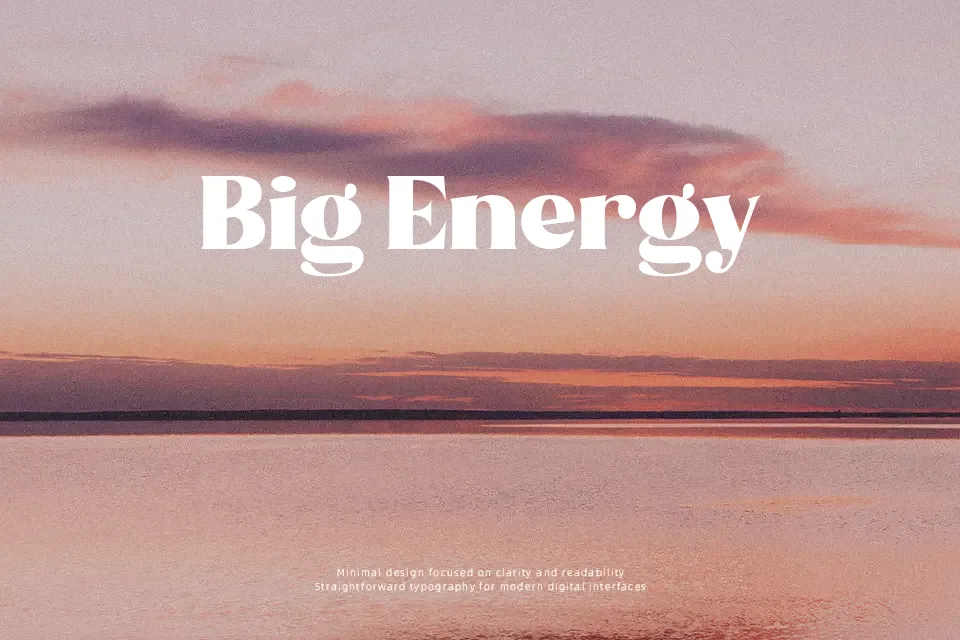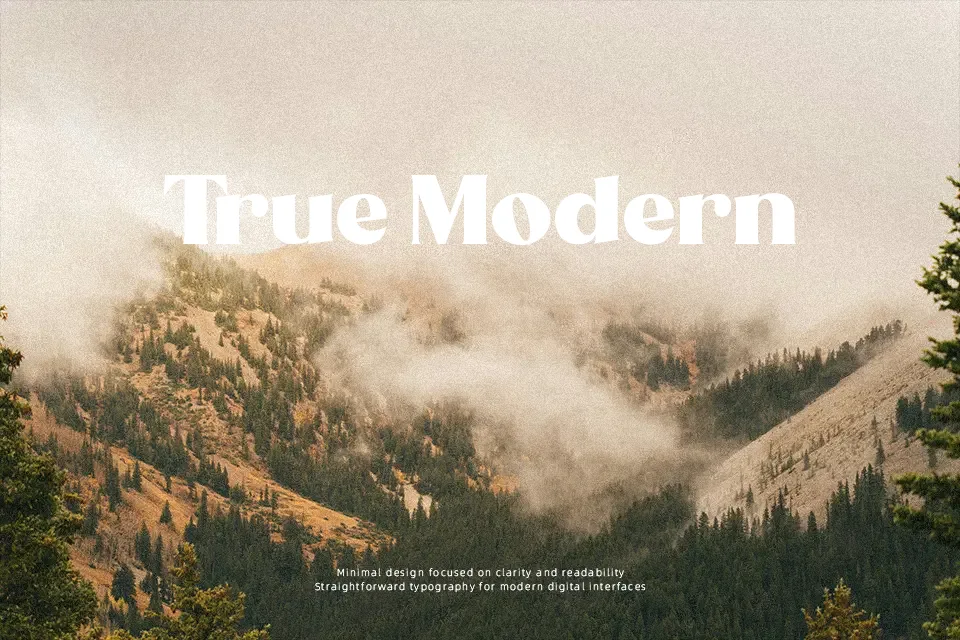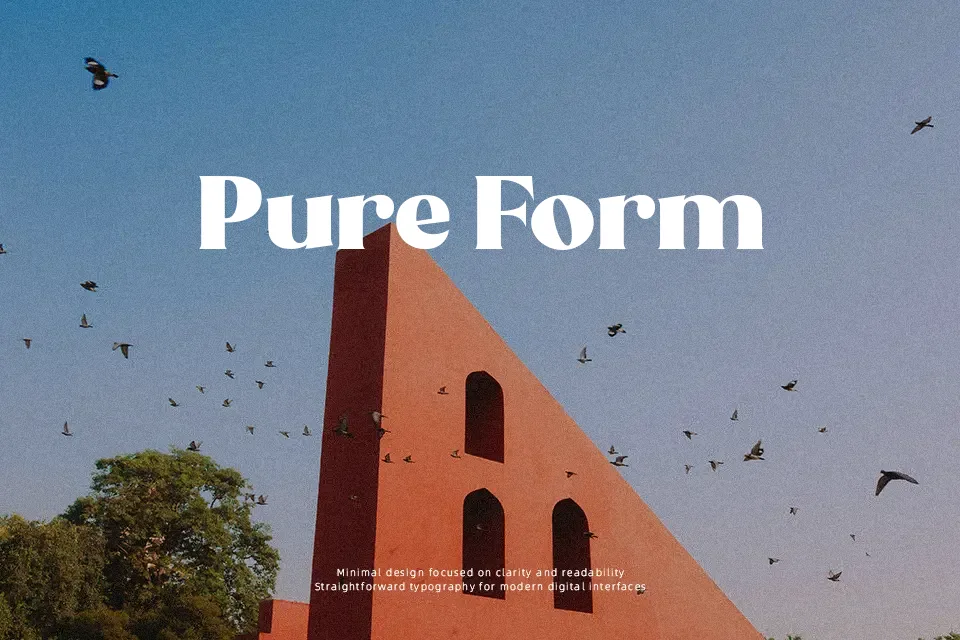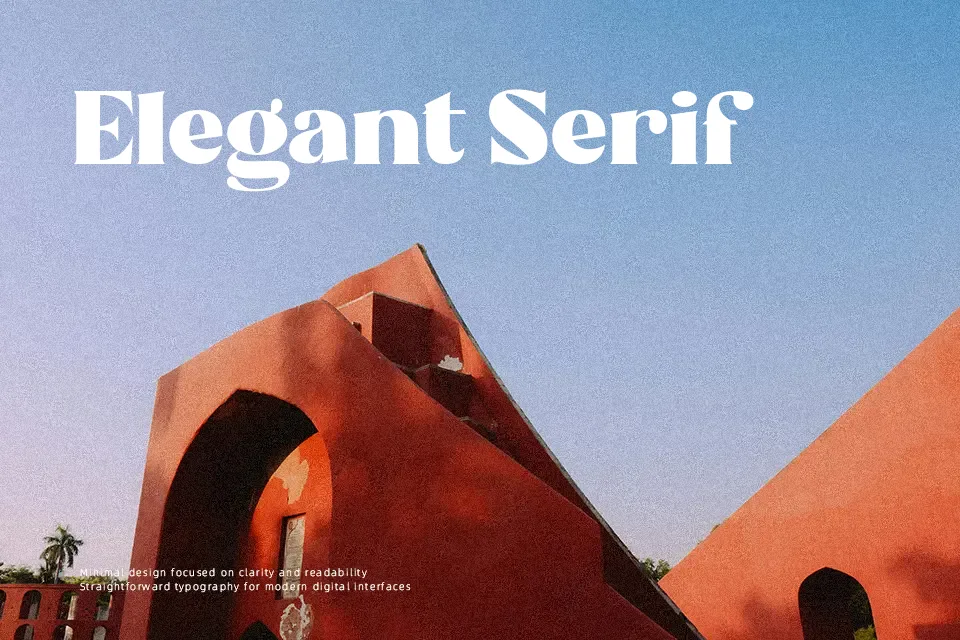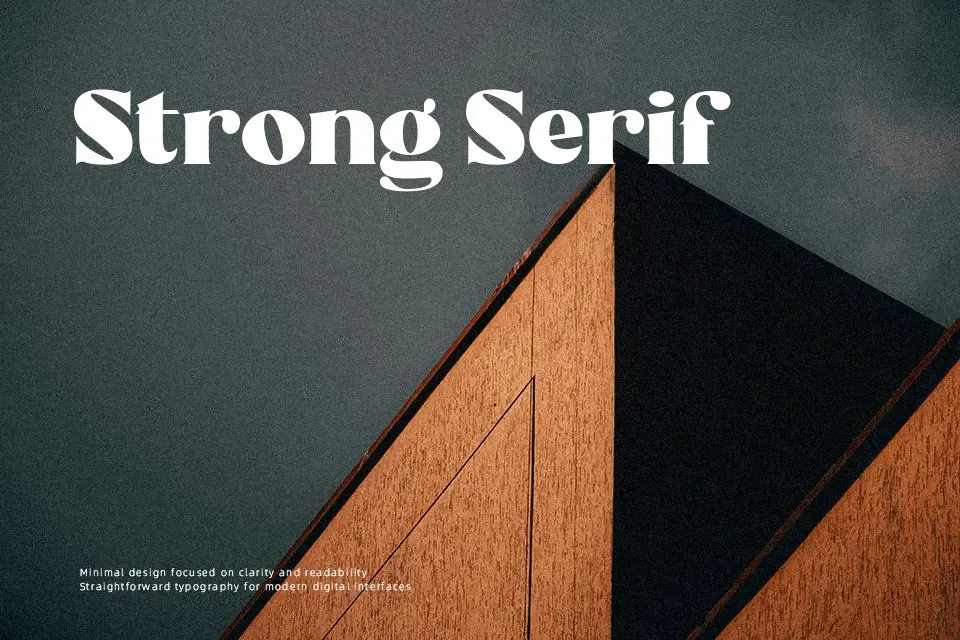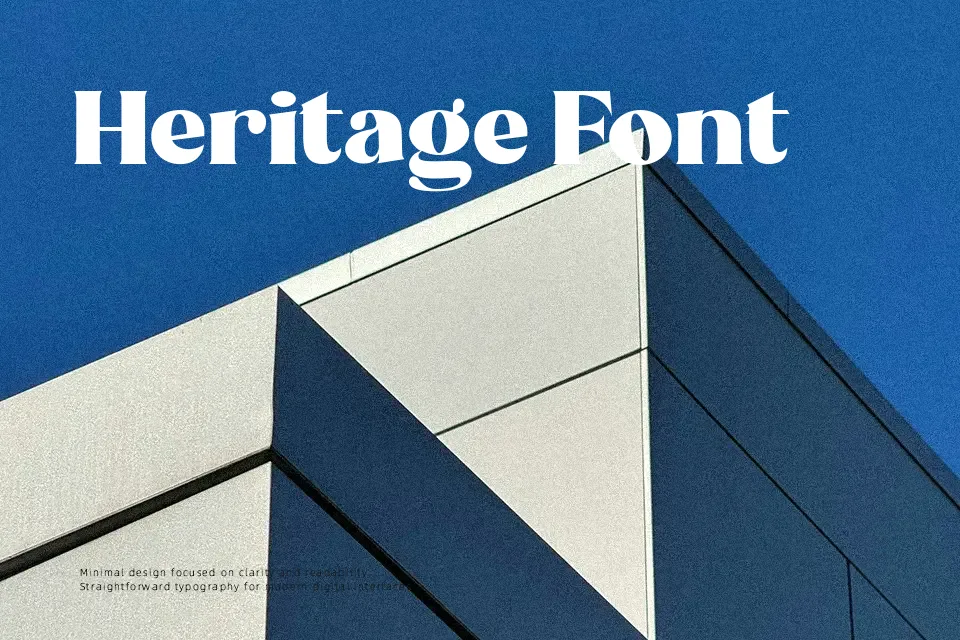
Prima Font
A short product label or poster headline benefits greatly from the vintage energy of Prima Font. The letterforms feature thick, smooth strokes with pronounced curves, creating a seamless visual rhythm across words. Its tightly spaced structure gives headlines a cohesive and striking presence. The spacing helps maintain clarity in larger headlines, allowing the bold letterforms to stand out effortlessly. However, because of the heavy stroke weight and compact spacing, the design is less suitable for long paragraphs or small text sizes, where the dense forms reduce continuous reading comfort.
vintage product packaging, vibrant event posters, coffee shop branding, retro apparel graphics
long paragraph text, small interface labels, dense editorial layouts
Perfect for headline, logo, and packaging, with a bold and decorative style.